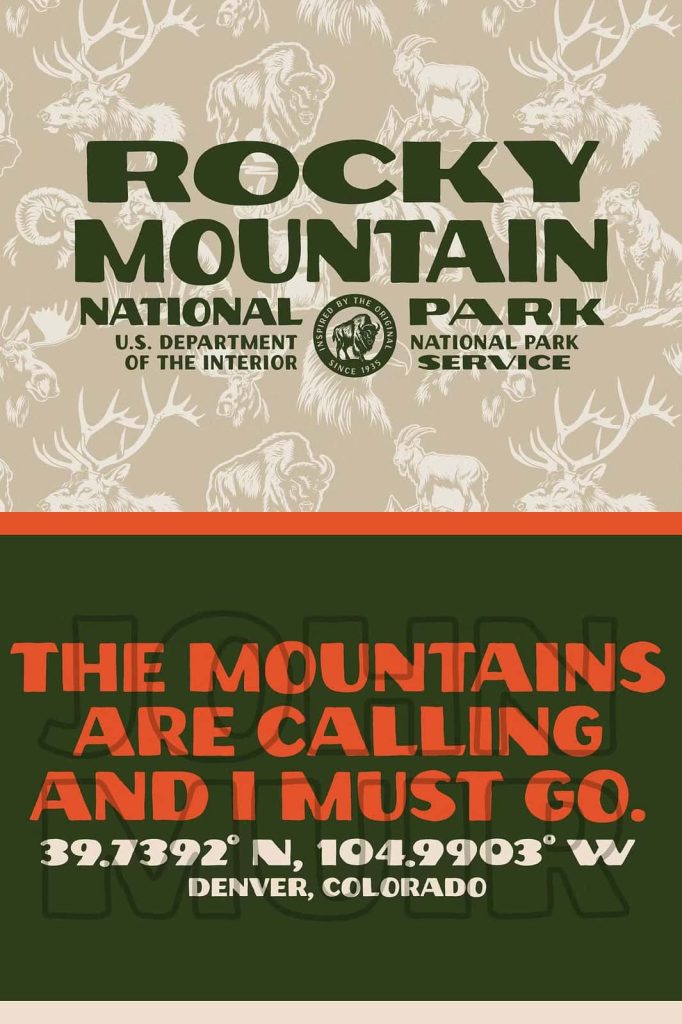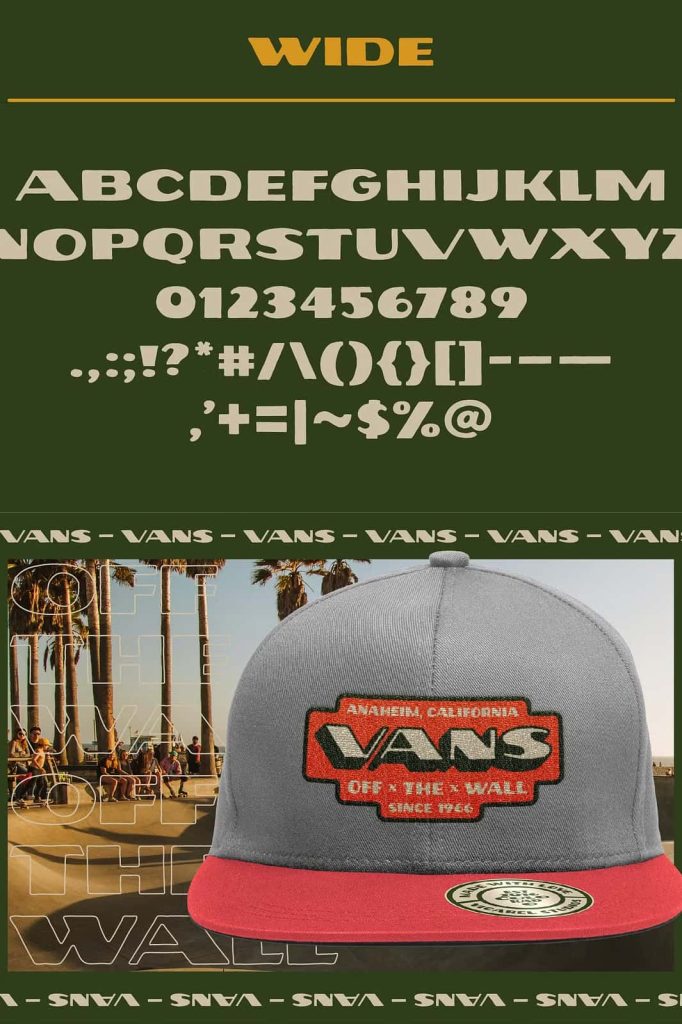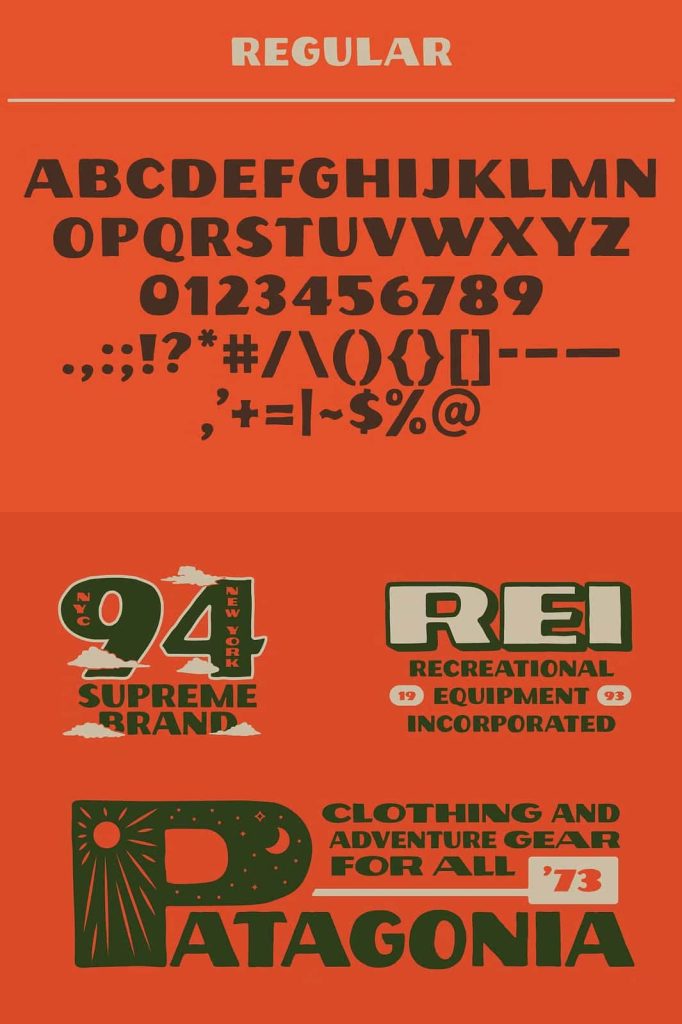
John Muir Sans Font: Vintage National Park Style for Bold and Authentic Design
A Rugged Typeface Inspired by Nature and Heritage
John Muir Sans is a distinctive sans serif font created by Vicarel Studios, inspired by the timeless aesthetic of vintage National Park posters and the legacy of the National Forest Service. This typeface captures the spirit of the outdoors with its rough, worn texture and strong character, making it a powerful choice for designers who want to evoke authenticity and adventure.
The font draws influence from the iconic visual language associated with classic American park signage and poster design. It reflects a sense of exploration, resilience, and natural beauty. By incorporating subtle imperfections and weathered details, John Muir Sans creates a handcrafted look that feels both nostalgic and bold.
Rough Texture Meets Versatile Design
John Muir Sans stands out because of its textured appearance. The rough edges and slightly distressed finish give each letter a unique personality. This design approach adds depth and character, helping your typography feel more organic and visually engaging.
Despite its rugged look, the font remains highly versatile. Its clean sans serif structure ensures readability while maintaining a strong visual presence. This balance allows you to use it across a wide range of applications without compromising clarity.
Key Features
- Vintage-inspired sans serif with rough, worn texture
- Strong and bold letterforms for impactful design
- Inspired by National Park and Forest Service typography
- Highly readable despite its distressed style
- Suitable for both print and digital projects
Perfect for Branding, Logos, and Apparel
John Muir Sans is an excellent choice for branding projects that require a strong and memorable identity. Its bold and rugged appearance helps brands communicate authenticity and durability. Whether you are creating a logo for an outdoor brand, a lifestyle company, or a vintage-inspired business, this font delivers a powerful visual statement.
In apparel design, John Muir Sans performs exceptionally well. Its textured style translates beautifully onto t-shirts, hoodies, and merchandise, giving products a handcrafted and premium feel. Designers can use it to create graphics that resonate with audiences who appreciate outdoor culture, adventure, and timeless design.
The font also works effectively for posters, signage, and promotional materials. Its vintage roots make it especially suitable for designs that aim to capture a retro or heritage-inspired look. Whether you are designing for print or digital platforms, John Muir Sans ensures your message stands out.
Capture the Spirit of Exploration in Every Design
Using John Muir Sans allows you to infuse your projects with a sense of exploration and storytelling. The font reflects the legacy of John Muir, a figure closely associated with nature and conservation. This connection adds depth and meaning to your designs, making them more than just visual elements.
You can pair John Muir Sans with clean modern fonts to create contrast or use it as a standalone typeface for a bold and cohesive look. Its adaptability ensures that it fits seamlessly into various design styles, from rustic and vintage to modern and minimal.
The font’s ability to balance texture and readability makes it a valuable tool for designers who want to create impactful and meaningful visuals.
Why Choose John Muir Sans
John Muir Sans offers a unique combination of rugged texture, historical inspiration, and modern usability. It allows you to create designs that feel authentic, strong, and visually compelling. Its versatility ensures that it works across multiple design contexts, from branding and apparel to posters and digital graphics.
If you are looking for a font that captures the essence of vintage National Park design while delivering reliable performance, John Muir Sans is a dependable and inspiring choice. It empowers you to create bold designs that tell a story and leave a lasting impression.